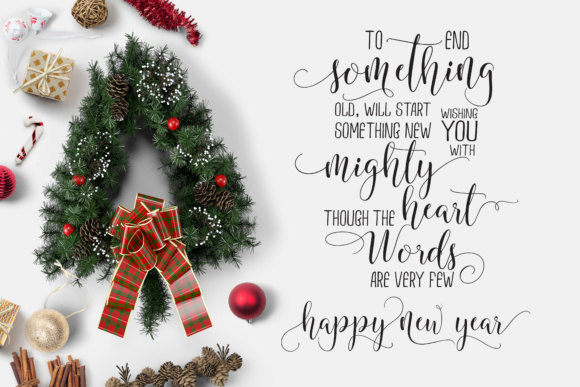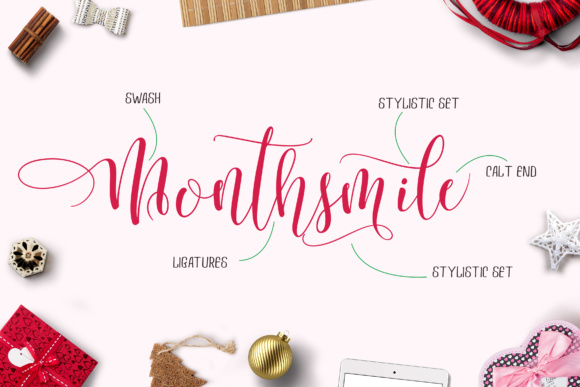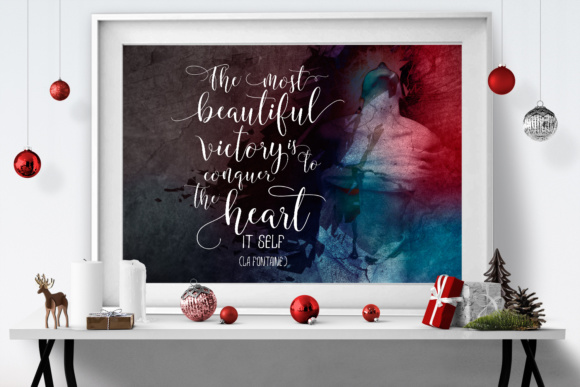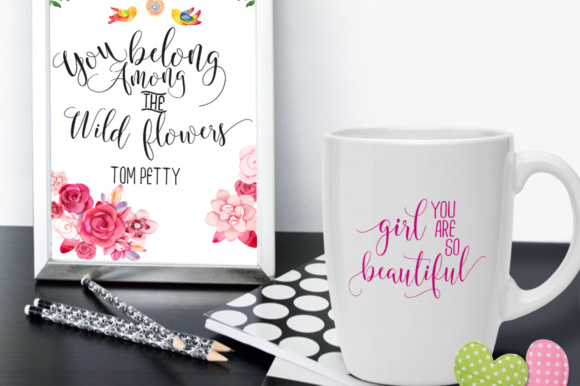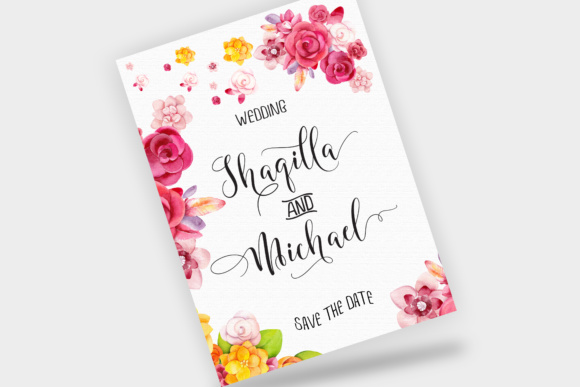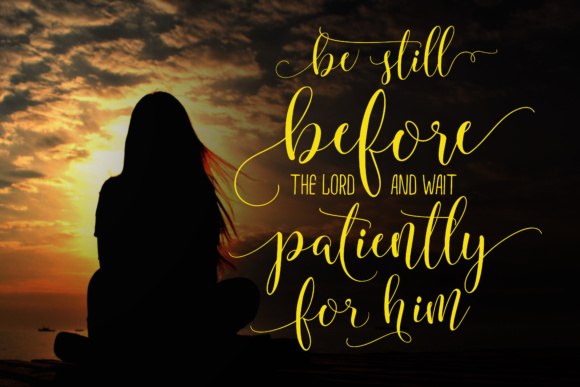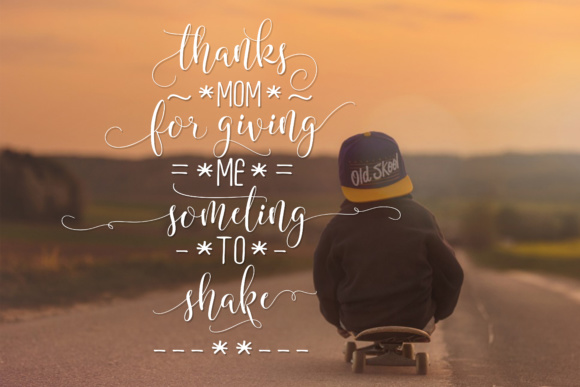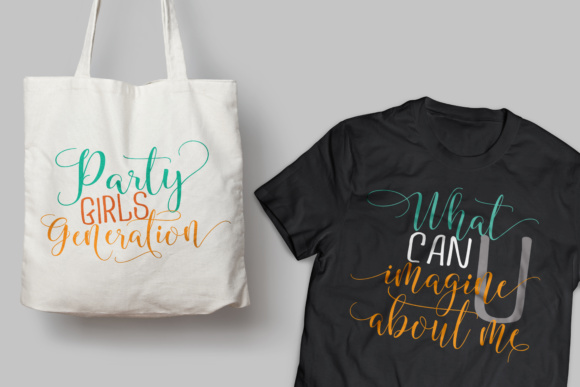
Mighty Heart Font
About Mighty Heart Font
Mighty Heart is a highly stylized, swashy calligraphic font that works for a wide range of projects. This font is a great display for print projects, and adds a ton of elegance to all your designs.